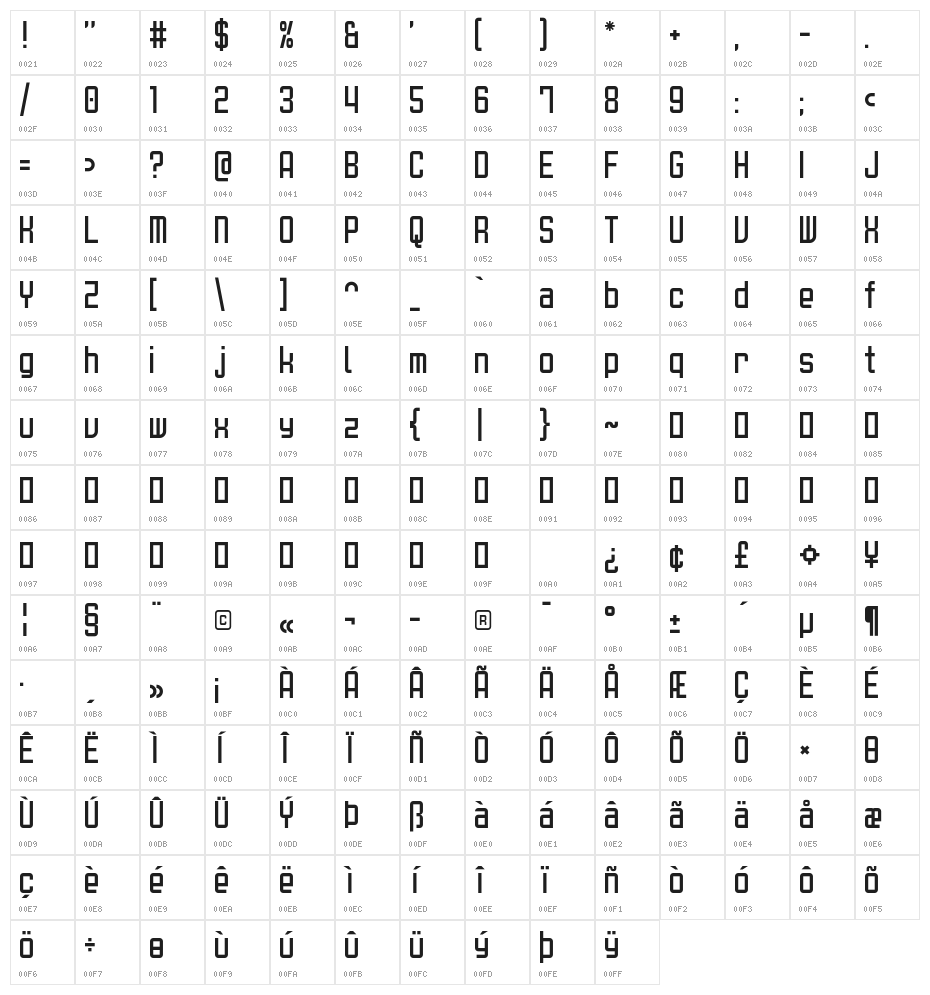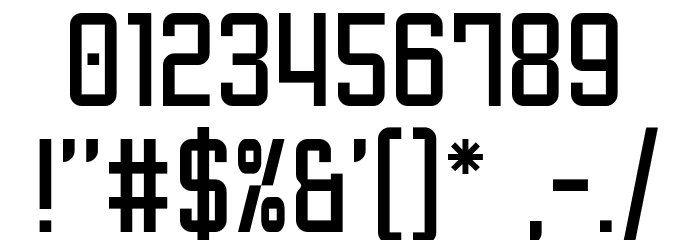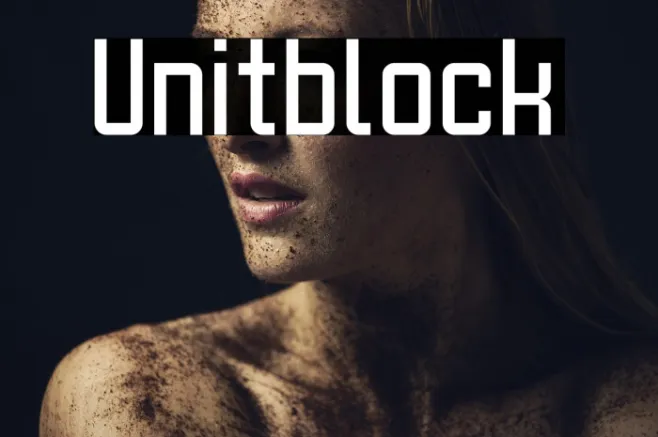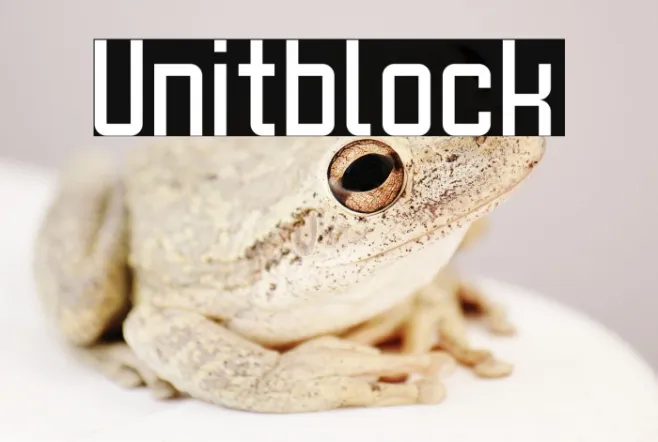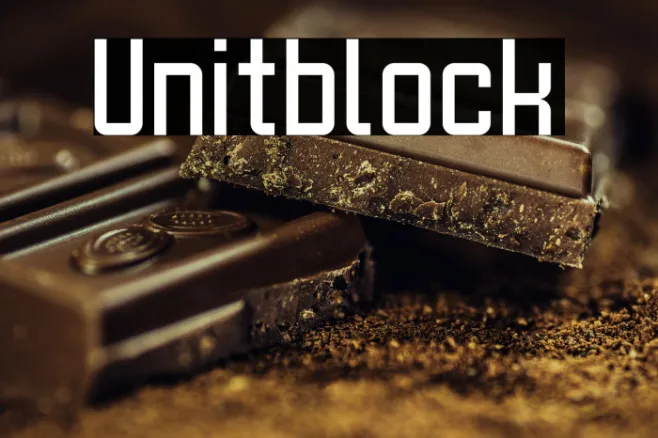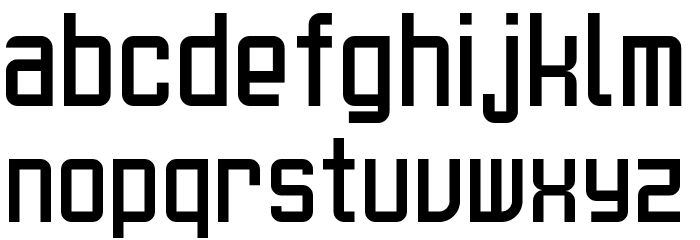
Unitblock Font
Unitblock Description
This font features a geometric and modern design with clean, straight lines and a uniform stroke width. The characters are constructed with a squared-off appearance, giving them a blocky and structured look. The uppercase and lowercase letters maintain a consistent height, contributing to a cohesive and orderly aesthetic. The numerals and special characters follow the same design principles, ensuring uniformity across all glyphs. The font's simplicity and clarity make it highly legible, even at smaller sizes, while its bold and assertive style commands attention.
| Use Case | Headlines, Logos, Digital Interfaces |
| Proposed Projects | Ideal for technology branding, modern posters, digital interfaces, and architectural designs. |